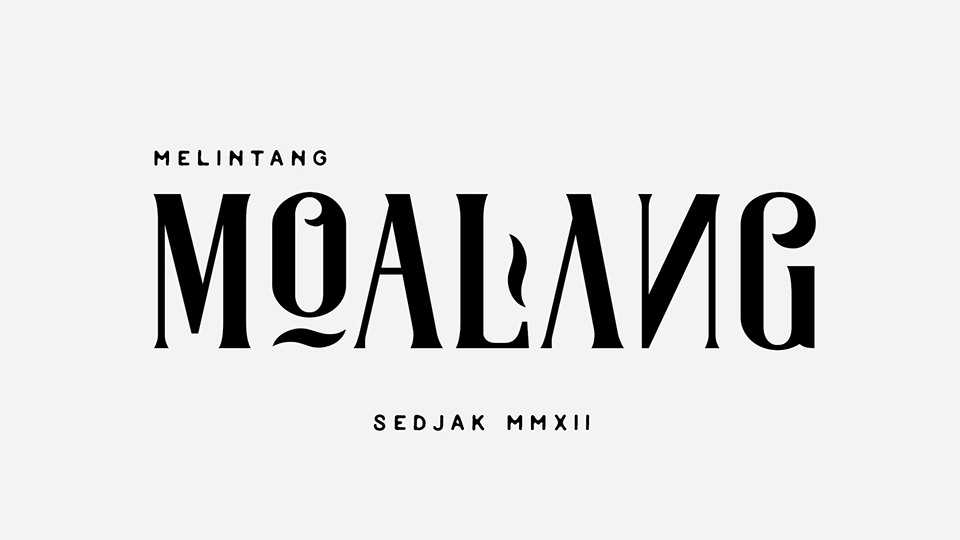
Download Moalang font, a vintage display font with unique glyph combination to create fresh look on your project. Perfect for old style design, logo, branding, fashion and other creative projects.
Designer: Agga Swistblnk